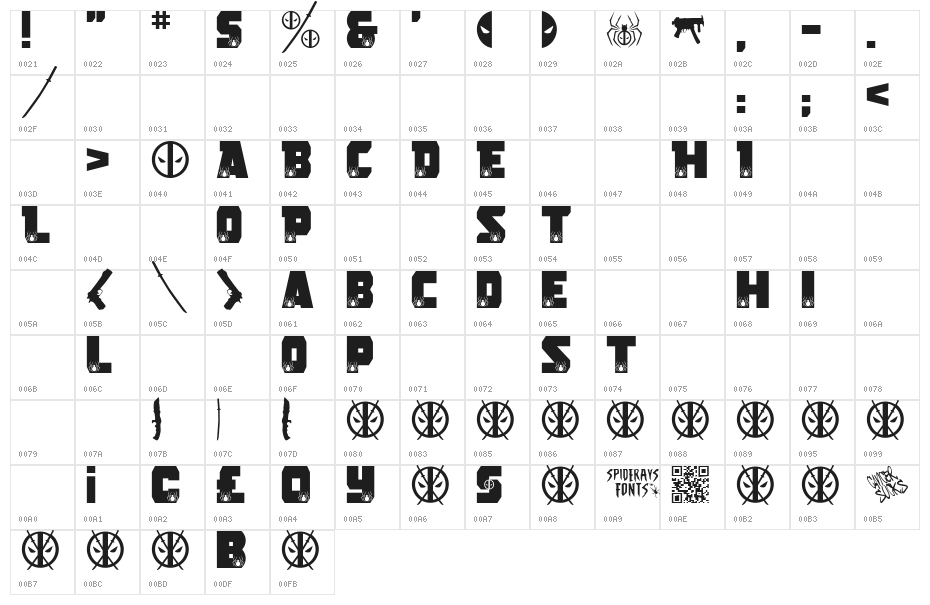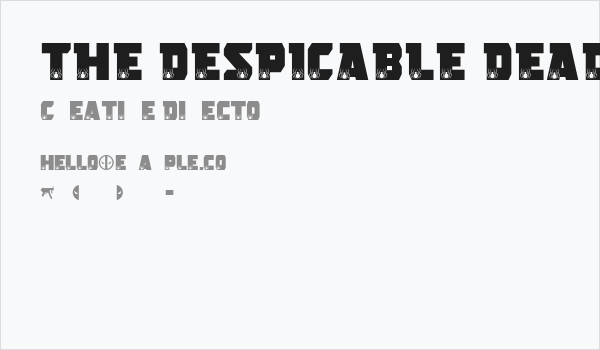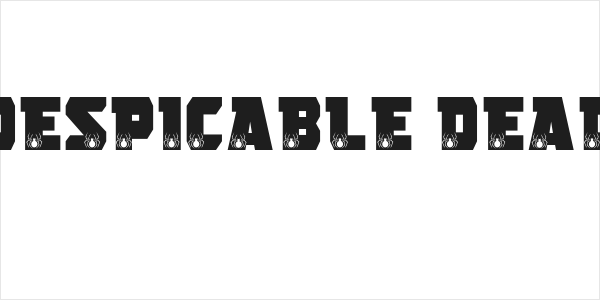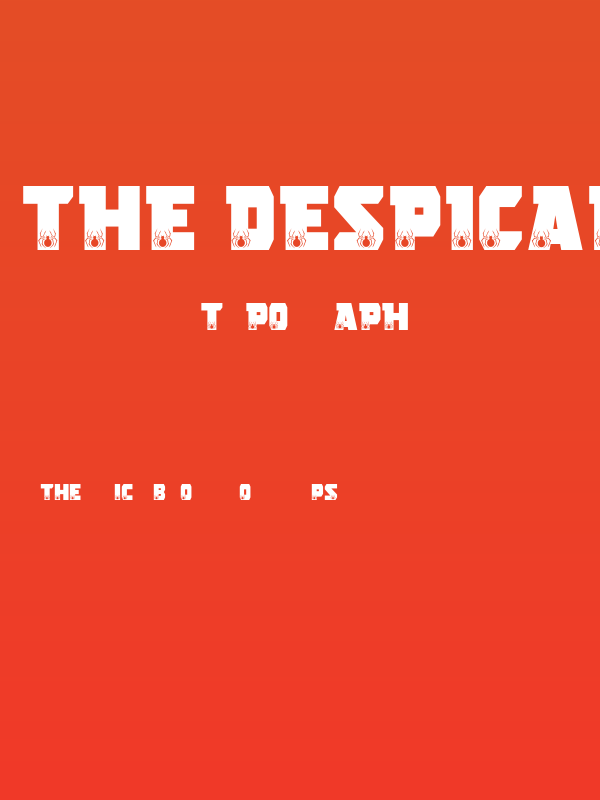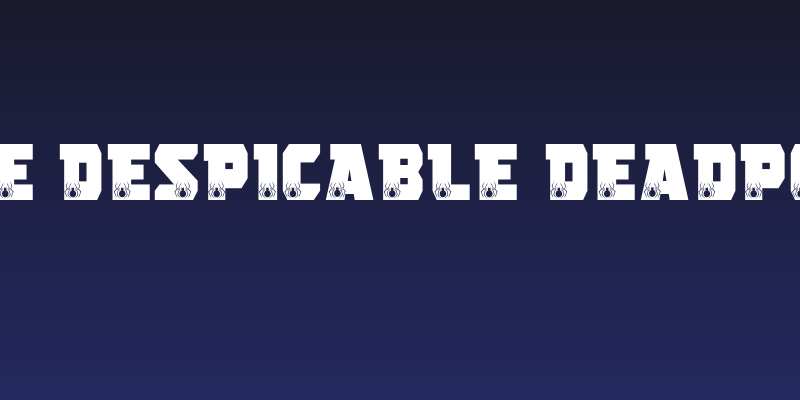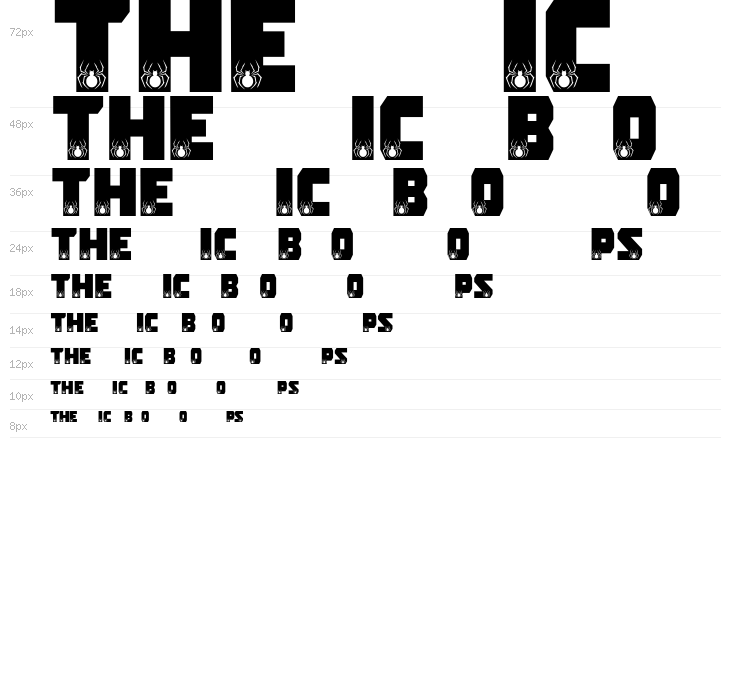
THE DESPICABLE DEADPOOL Font
THE DESPICABLE DEADPOOL Description
This bold and striking font features a unique design with a playful and edgy aesthetic. Each character is crafted with a solid, blocky structure, incorporating distinctive graphic elements that add a sense of dynamism and flair. The font includes uppercase letters, numbers, and a variety of special characters, each adorned with thematic embellishments that enhance its visual impact. The overall style is reminiscent of comic book art, making it ideal for projects that require a bold and adventurous look. The characters are evenly spaced, ensuring readability while maintaining a strong visual presence.
THE DESPICABLE DEADPOOL
| Proposed Projects | Ideal for comic book covers, movie posters, video game titles, and merchandise branding. |